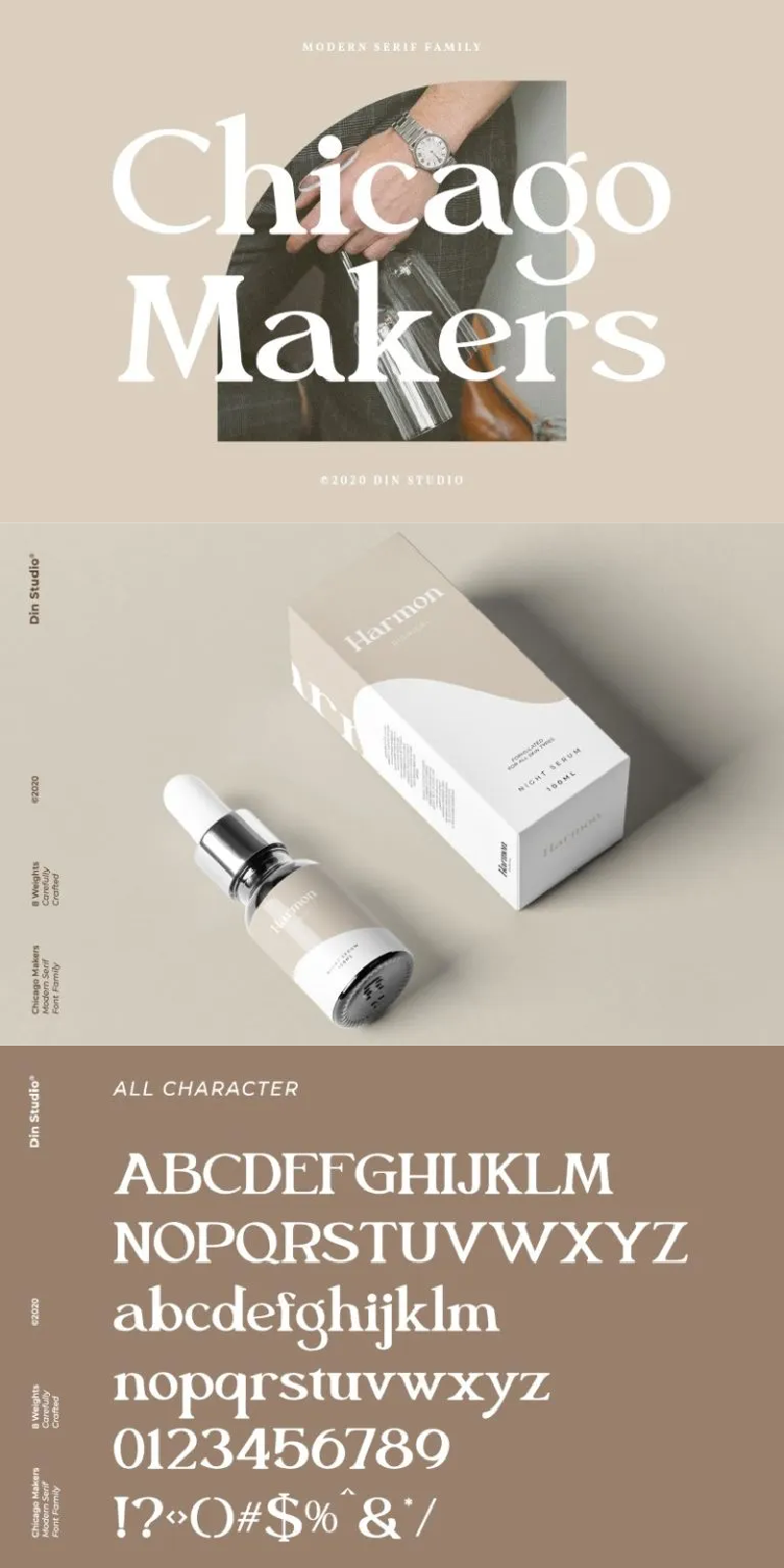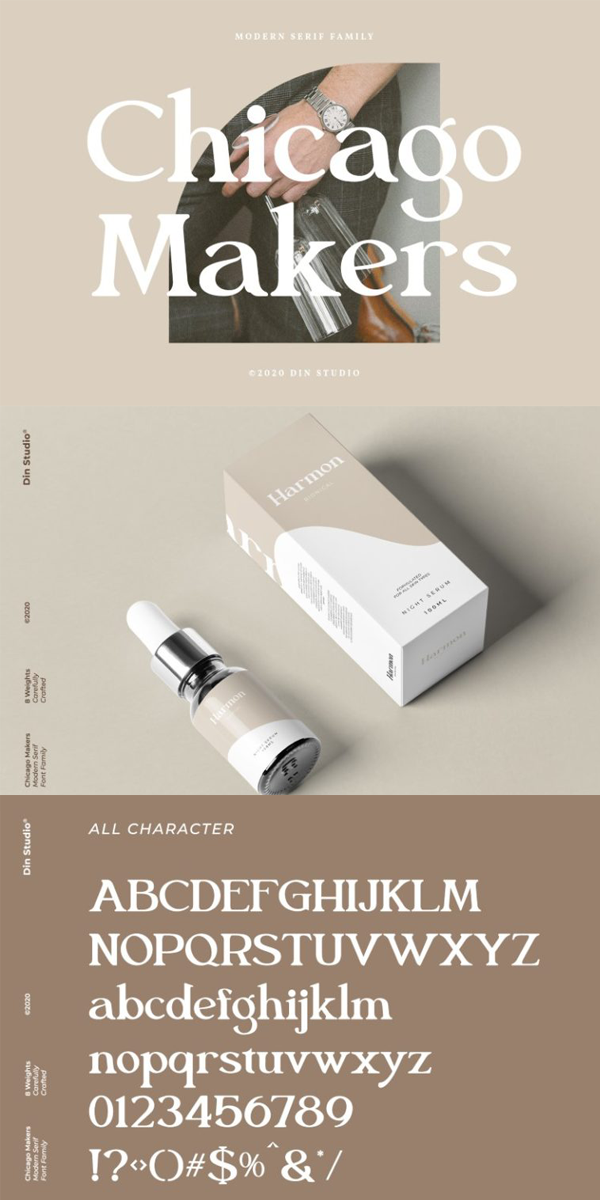
Chicago Makers Font
About Chicago Makers
Chicago Makers Font – A Serif Font Family
With only one package you will get many options to bring out engaging content. Chicago Makers font made to show a modern and stylish view to what you make. It fits right in with your designs or projects, whatever it is! This font is perfect for headings, logos, business cards, printed quotes, cards, packaging, website or social media branding, and many more!
Inspire your audience, clients, or guests with this beautiful, statement font. See the previews above to get some inspiration on how you can use them.
-Chicago Makers Thin
-Chicago Makers Extra Light
-Chicago Makers Light
-Chicago Makers Regular
-Chicago Makers Medium
-Chicago Makers Semi Bold
-Chicago Makers Bold
-Chicago Makers Extra Bold